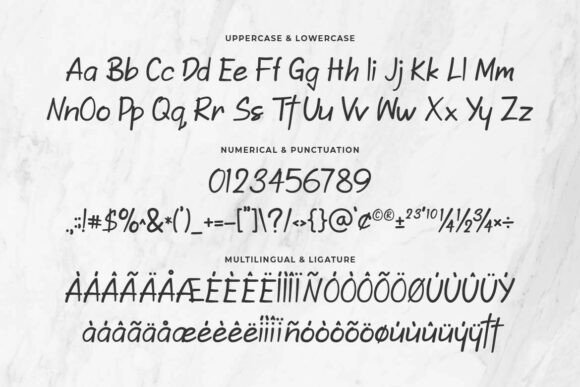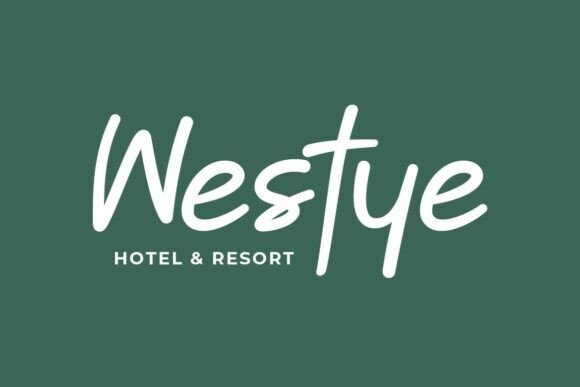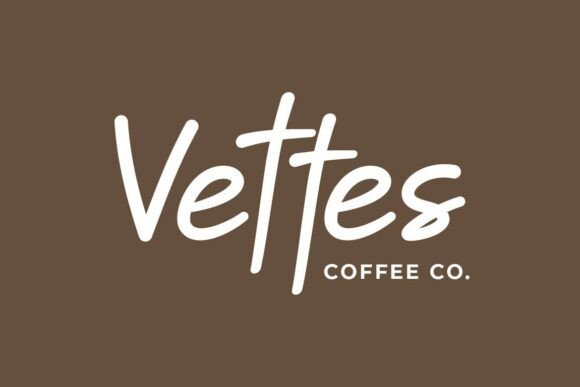
Introduction to Lenttera Font
Lenttera is a beautifully handcrafted handwritten font that captures the charm of genuine handwriting with a smooth and natural flow.
Designed to bring warmth and authenticity to your creative projects, Lenttera blends casual elegance with a personal touch, making it perfect for logos, invitations, social media quotes, branding, packaging, and greeting cards .
Key Features of Lenttera Font
Why Choose Lenttera Font?
Lenttera Font offers exceptional quality and versatility, making it a valuable addition to your design toolkit. Whether you’re creating for personal projects or commercial use, Lenttera Font delivers professional results.